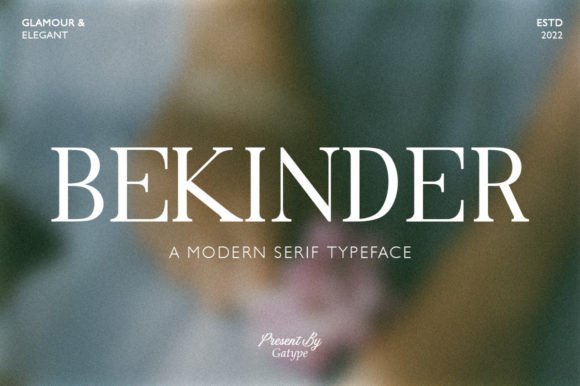
Bekinder Font: Elevate Your Designs with a Modern Serif Twist
Are you on the hunt for a font that adds a touch of modern elegance and playfulness to your designs? Look no further than the Bekinder Font, a stunning serif font that’s perfect for a wide range of creative projects. In this article, we’ll dive into the world of Bekinder, exploring its features, uses, and benefits for designers and crafters alike.
What is Bekinder Font?
Bekinder is a modern and unique serif font that’s designed to bring a fresh perspective to your designs. Its sleek lines, elegant curves, and customizable features make it an ideal choice for projects that require a touch of sophistication and whimsy. Whether you’re working on a logo, editorial design, branding project, or social media post, Bekinder is sure to make a statement.
Key Features of Bekinder Font
- Modern Serif Design: Bekinder boasts a sleek and contemporary serif design that’s perfect for creating visually appealing designs.
- Customizable: With Bekinder, you can easily customize your designs to fit your unique style and vision.
- Feminine Touch: Bekinder’s elegant curves and lines give it a distinctly feminine touch, perfect for designs that require a touch of elegance and sophistication.
Uses of Bekinder Font
Bekinder is a versatile font that can be used for a wide range of design projects, including:
- Feminine Logo Signs: Create stunning logo signs that exude elegance and sophistication.
- Fashion & Editorial Design Heads: Use Bekinder to create eye-catching headlines and titles for your fashion and editorial designs.
- Branding Projects: Develop a strong brand identity with Bekinder’s unique and customizable design.
- Clothing Branding: Add a touch of style and sophistication to your clothing brand with Bekinder.
- Packaging: Create eye-catching packaging designs that stand out on store shelves.
- Magazine Titles: Use Bekinder to create stunning magazine titles that grab attention.
- Advertisements: Develop effective advertisements that showcase your brand’s personality.
- T-Shirts: Create stylish and comfortable t-shirt designs that appeal to a wide audience.
- Postcards: Design beautiful postcards that capture the essence of your brand.
- Valentines: Create romantic and elegant valentine designs that speak to the heart.
- Posters: Develop stunning posters that showcase your brand’s message.
- Invitations: Design elegant and sophisticated invitations that set the tone for any event.
- Weddings: Use Bekinder to create beautiful wedding designs that capture the magic of the special day.
- Branding Projects: Develop a strong brand identity with Bekinder’s unique and customizable design.
- Social Media Posts: Create engaging social media posts that stand out in crowded feeds.
- Magazines: Use Bekinder to create stunning magazine designs that captivate readers.
- Book Covers: Develop eye-catching book covers that grab attention.
Benefits of Using Bekinder Font
So, why choose Bekinder Font for your design projects? Here are just a few benefits:
- Unique and Modern Design: Bekinder offers a fresh perspective on serif fonts, making it perfect for designers looking for something new and exciting.
- Customizable: With Bekinder, you can easily customize your designs to fit your unique style and vision.
- Elegant and Sophisticated: Bekinder’s elegant curves and lines give it a distinctly feminine touch, perfect for designs that require a touch of elegance and sophistication.
- PUA Encoded: This font is PUA encoded, making it easy to access all the glyphs and sweeps you need to create stunning designs.